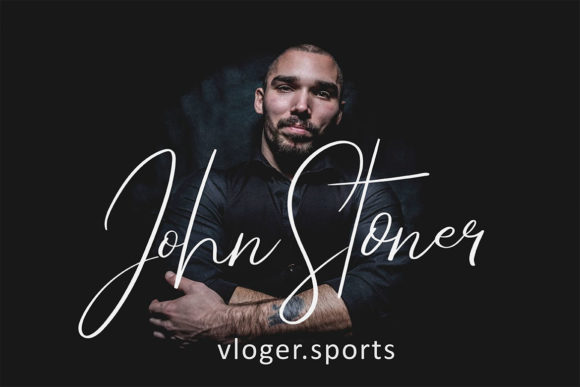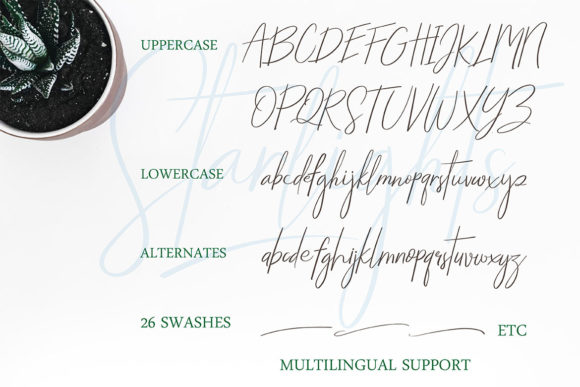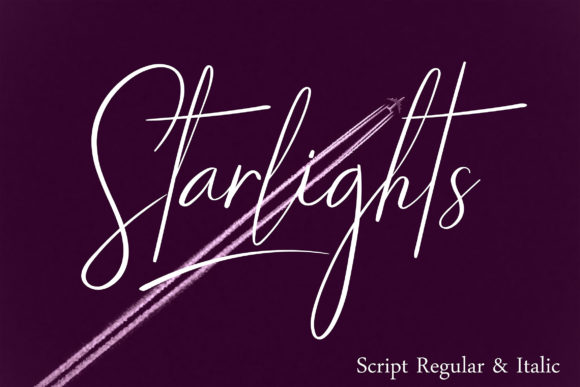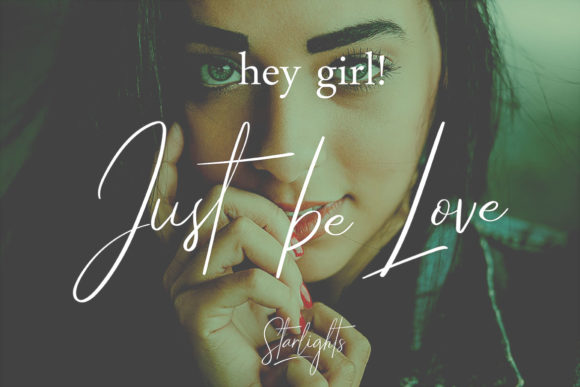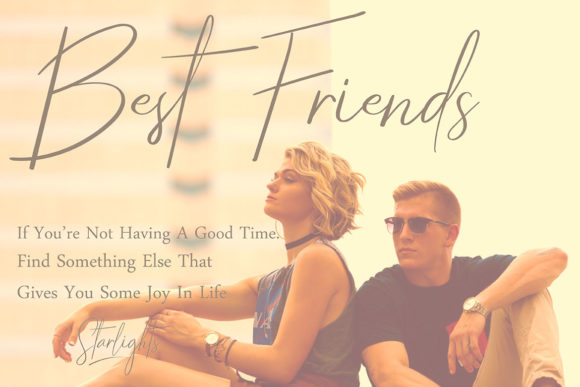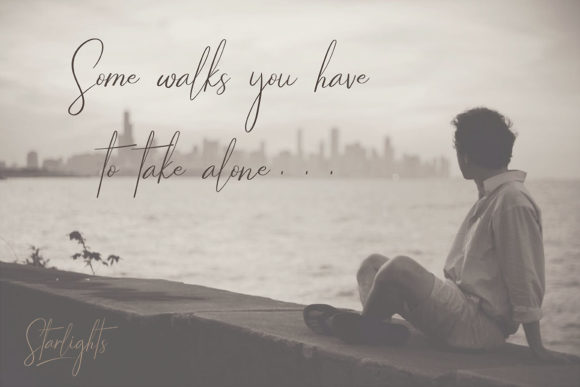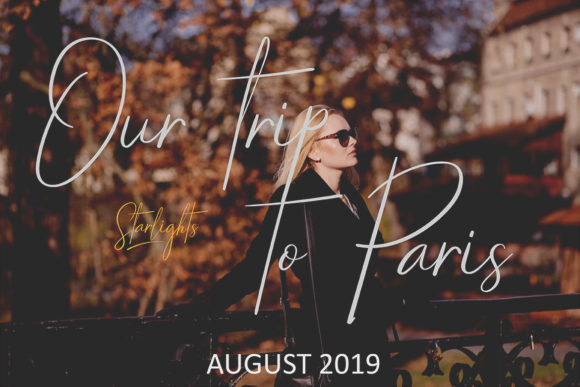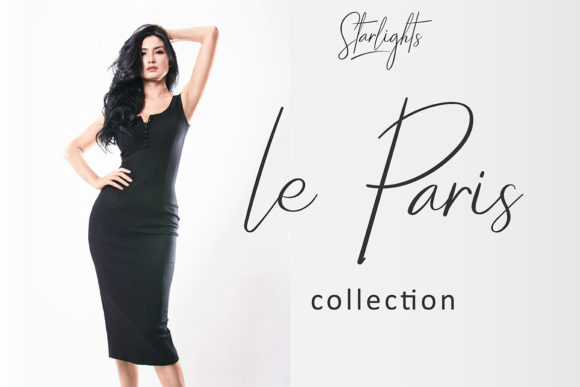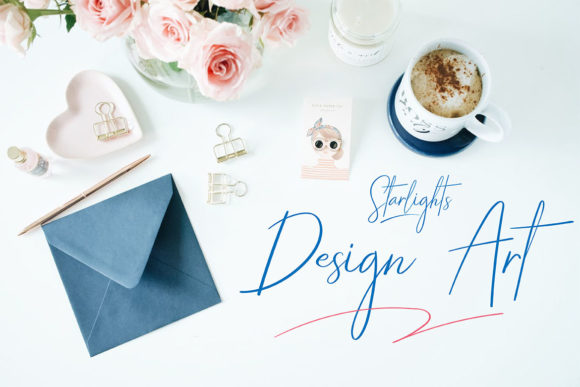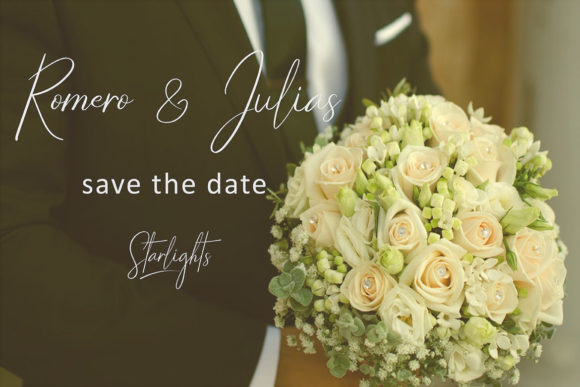
HomeScript FontsStarlights Font Script Fonts Starlights Font FacebookXPinterestWhatsApp Starlights Font Poster 2 Starlights Font Poster 3 Starlights Font Poster 4 Starlights Font Poster 5 Starlights Font Poster 6 Starlights Font Poster 7 Starlights Font Poster 8 Starlights Font Poster 9 Starlights Font Poster 10 Starlights Font Poster 11 About Starlights Font Starlights is a cool and smooth script with authentic swashes. Get inspired by its effortless charm! DOWNLOAD ON CREATIVE FABRICAThis font is sold and delivered by Creative Fabrica. Font Canyon may earn a commission if you buy through this link. People also explored Milky Berry Font Pumpkin Monogram Font Girl Boss Font Hunter Strike Font Sweet Summer Font Canturiana Font Rodin Quilt Font Weekend Font 355 0 TagsStarlights Font Previous articleBillistone FontNext articleMorning Mood Font LEAVE A REPLY Cancel reply Comment: Please enter your comment! Name:* Please enter your name here Email:* You have entered an incorrect email address! Please enter your email address here Website: Save my name, email, and website in this browser for the next time I comment. Personal Use Free Bajt Rounded Personal Use Free Read more about this font Tanpax Personal Use Free Read more about this font Talking on Personal Use Free Read more about this font Deco Neue Wilde Personal Use Free Read more about this font BLOG Best Fonts for YouTube Videos: Make Your Thumbnails Stand Out Best Fonts for YouTube Videos: Make Your Thumbnails Stand Out Choosing the right font can make a massive difference in how your YouTube videos perform.... Where to Buy American Fonts Online in 2024 Free Fonts Risk: Why Free Fonts Can Be Dangerous for Designers Using Fonts in Digital Marketing: Tips to Strengthen Your Brand Identity